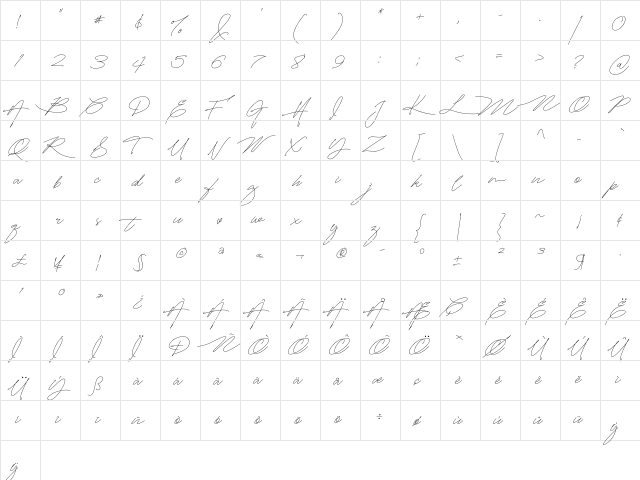
mightam Regular
Design Context for mightam Typeface
mightam is a composed and adaptable typeface that performs quietly and consistently across a wide range of design contexts.